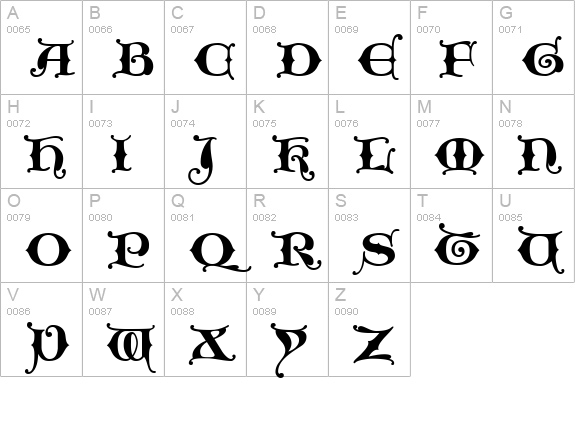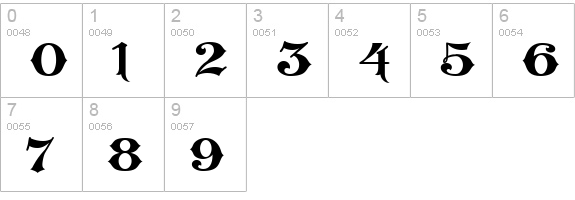
King Xmas Font Details
The King Xmas font is a regal and festive typeface perfect for adding a touch of royalty to your holiday designs. With its elegant and ornate letterforms, this font exudes a sense of grandeur and sophistication, making it ideal for creating stunning Christmas-themed projects. The intricate details and decorative elements of King Xmas evoke a sense of tradition and celebration, making it a standout choice for all your seasonal design needs. And the best part? King Xmas is available for free download at FontsMarket.com! Embrace the spirit of giving this holiday season with this exquisite font that will elevate your designs to a whole new level. Spread joy and cheer with King Xmas as you create stunning invitations, cards, posters, and more. Download this majestic font today and make your holiday creations truly shine!